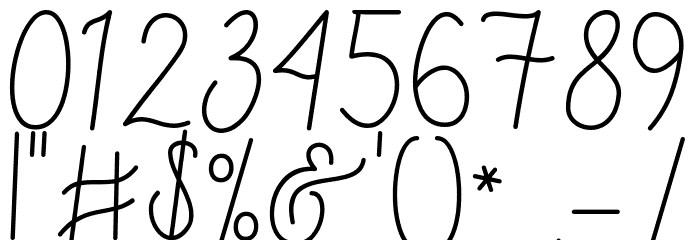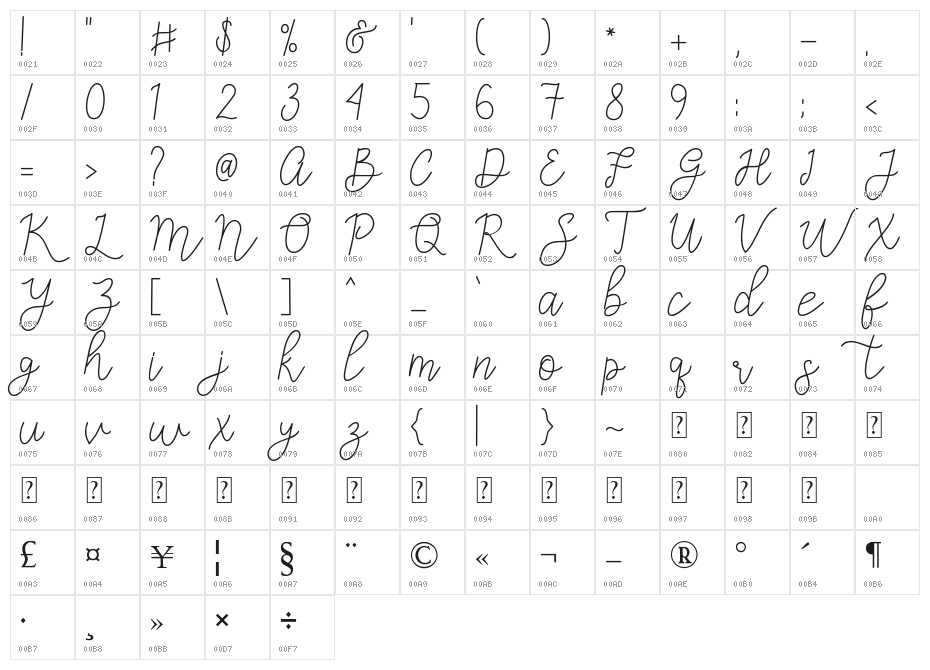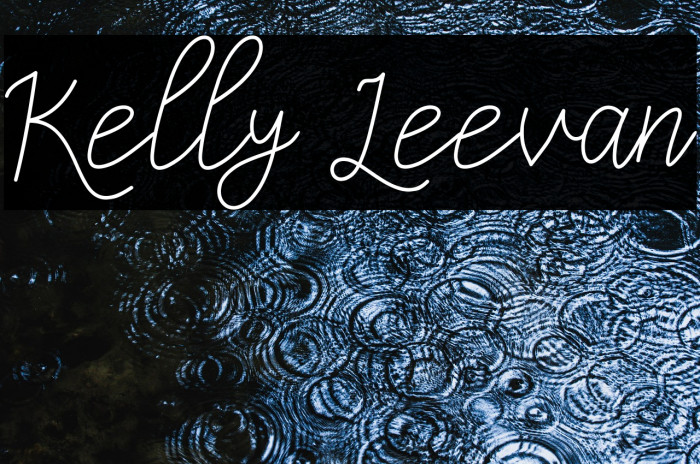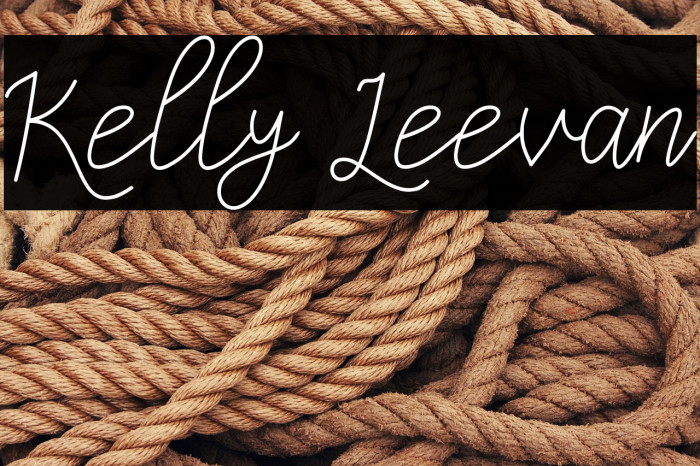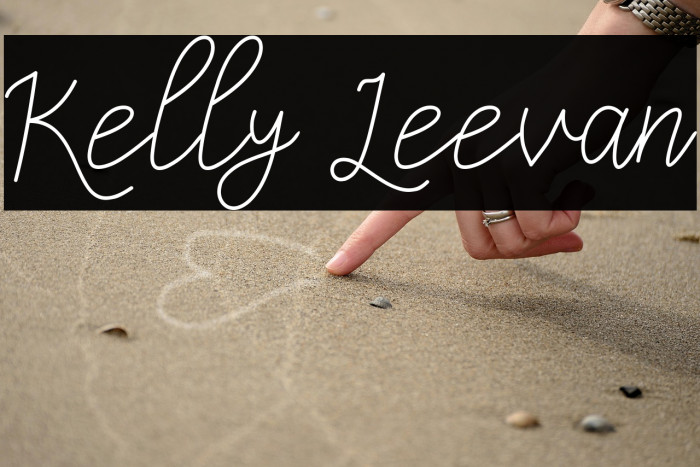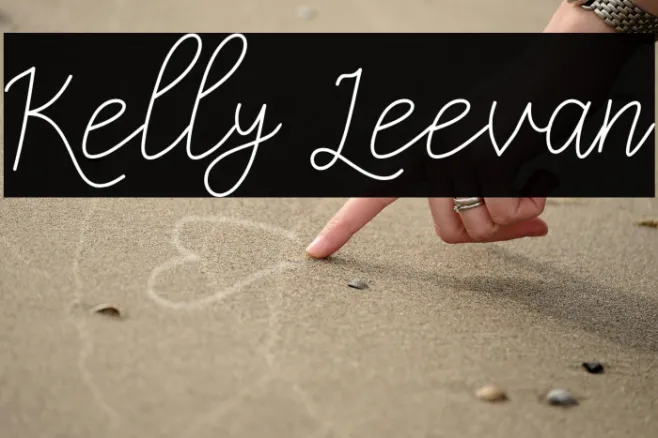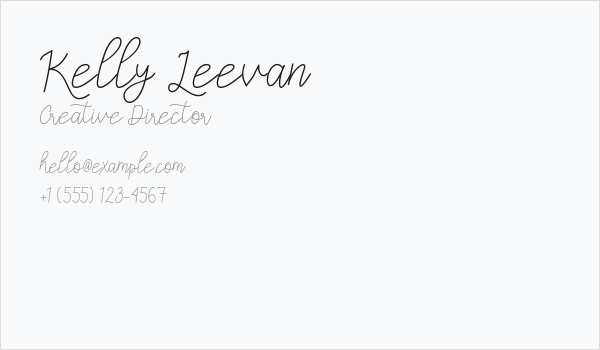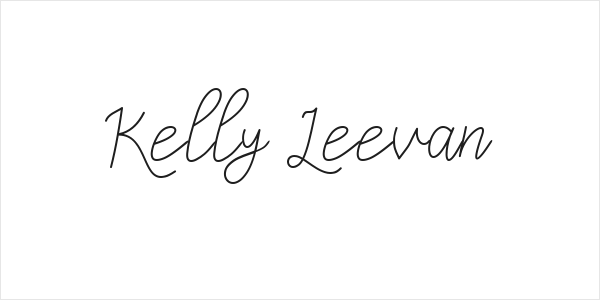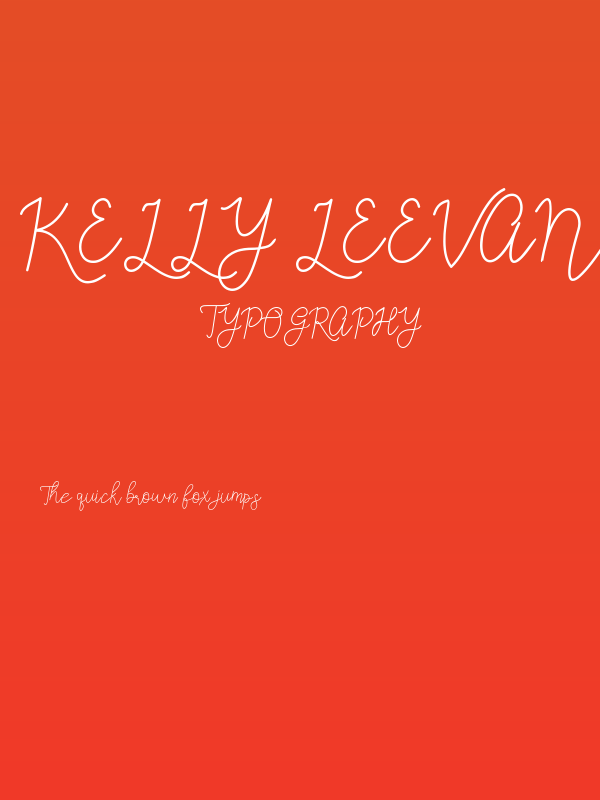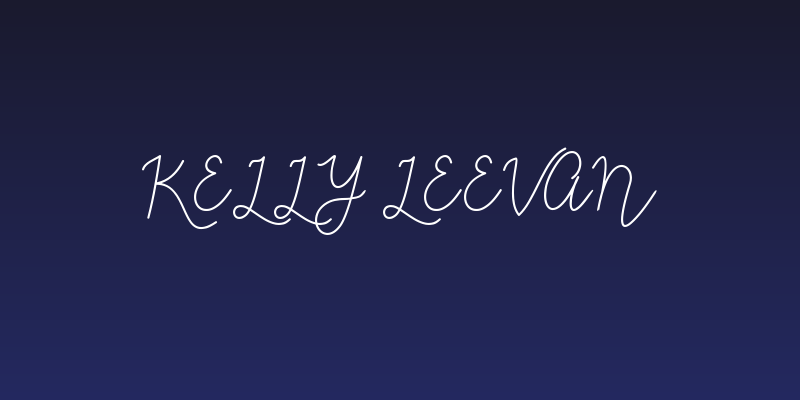
Kelly Leevan Font
Kelly Leevan Description
This font features a flowing, cursive style with elegant loops and smooth curves, giving it a handwritten appearance. The uppercase letters are slightly more structured, while the lowercase letters exhibit a more fluid and connected form. The numbers maintain the same cursive style, ensuring consistency throughout. Special characters are designed to complement the overall aesthetic, with a playful yet sophisticated touch. The strokes are thin, providing a delicate and airy feel, making it suitable for designs that require a personal and artistic touch.
| Proposed Projects | Ideal for wedding invitations, greeting cards, personal branding, and artistic projects. |